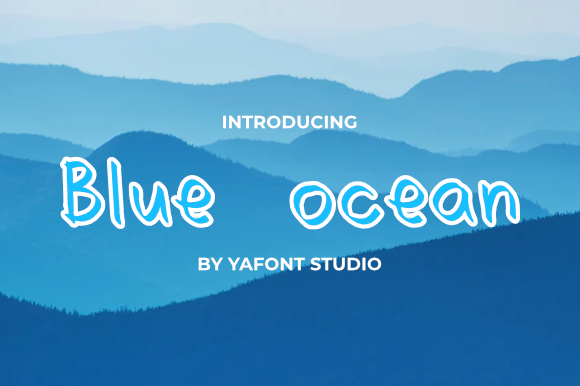
Introducing Blue Ocean Font: A Simple yet Stunning Display Font for Kids’ Designs
Are you a designer or crafter looking for a font that’s perfect for kids’ themed designs? Look no further than Blue Ocean Font! This simple and neat display font is ideal for creating eye-catching and engaging designs that kids will love. In this article, we’ll dive into the features and benefits of Blue Ocean Font, and explore how you can use it to take your designs to the next level.
The Characteristics of Blue Ocean Font
Blue Ocean Font is a display font that’s specifically designed to be clean, simple, and easy to read. Its sleek and modern design makes it perfect for kids’ themed designs, such as children’s books, educational materials, and even craft projects. The font features rounded edges and a playful feel, giving it a friendly and approachable vibe that’s sure to appeal to kids and adults alike.
Why Blue Ocean Font is Perfect for Kids’ Designs
So, what makes Blue Ocean Font so well-suited for kids’ designs? Here are just a few reasons:
- Simple and easy to read: Blue Ocean Font is designed to be clear and easy to read, making it perfect for kids’ books, educational materials, and other designs where readability is key.
- Playful and fun: The font’s playful feel and rounded edges give it a fun and friendly vibe that’s perfect for kids’ designs.
- Versatile: Blue Ocean Font can be used for a wide range of kids’ designs, from children’s books and educational materials to craft projects and more.
How to Use Blue Ocean Font in Your Designs
Now that we’ve explored the features and benefits of Blue Ocean Font, let’s talk about how you can use it in your designs. Here are a few ideas to get you started:
- Children’s books: Use Blue Ocean Font to create engaging and easy-to-read children’s books that kids will love.
- Educational materials: Blue Ocean Font is perfect for educational materials, such as worksheets, activity sheets, and more.
- Craft projects: Use Blue Ocean Font to add a playful touch to your craft projects, such as DIY signs, banners, and more.
- Digital designs: Blue Ocean Font can also be used in digital designs, such as social media graphics, blog posts, and more.
Tips for Pairing Blue Ocean Font with Bright Colors
One of the best ways to make Blue Ocean Font really pop is to pair it with bright colors. Here are a few tips for choosing the perfect colors:
- Choose bright and bold colors: Kids love bright and bold colors, so don’t be afraid to get creative and have fun with your color choices.
- Consider the mood you want to create: Different colors can evoke different moods and emotions. For example, blue and green can create a calm and soothing atmosphere, while orange and yellow can create a more energetic and playful vibe.
- Experiment with different color combinations: Don’t be afraid to try out different color combinations to see what works best for your design.
In conclusion, Blue Ocean Font is a simple and neat display font that’s perfect for kids’ themed designs. Its clean and modern design makes it easy to read and fun to look at, while its versatility makes it suitable for a wide range of design projects. By pairing Blue Ocean Font with bright colors, you can create eye-catching and engaging designs that kids will love. So why not give Blue Ocean Font a try and see what amazing designs you can create?